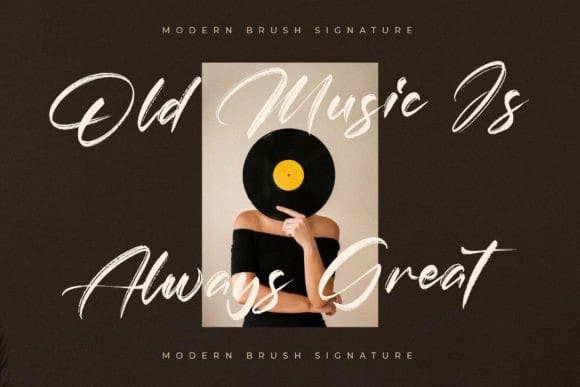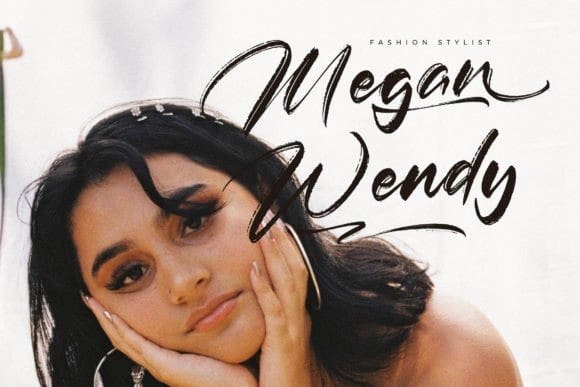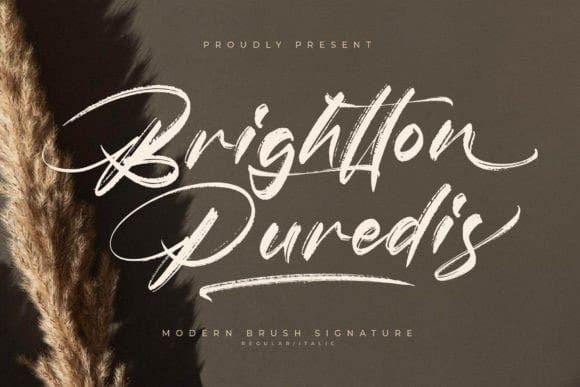
Brightton Puredis Font
Brightton Puredis Font is a stylish and elegant handwritten brush font. Its distinct and well-balanced letters make this font a masterpiece. Fall in love with its incredibly versatile style and use it to create spectacular designs!